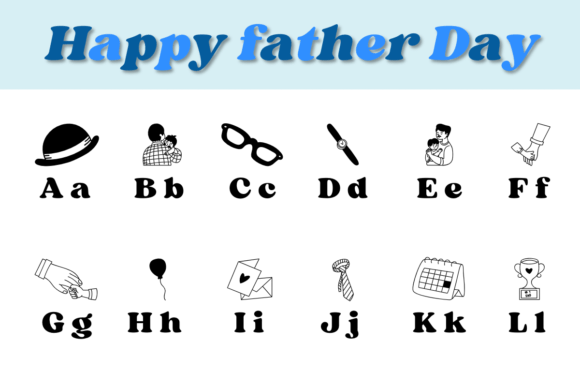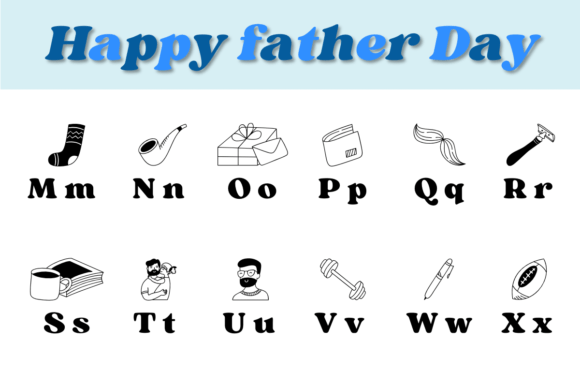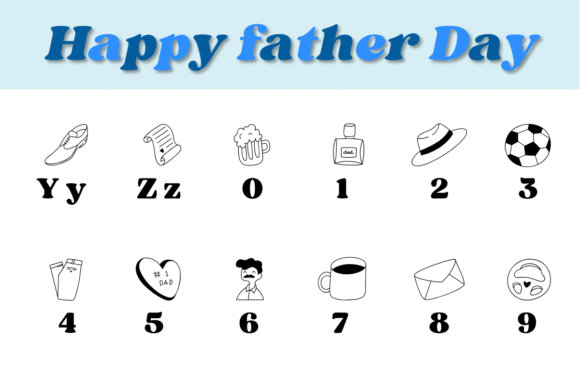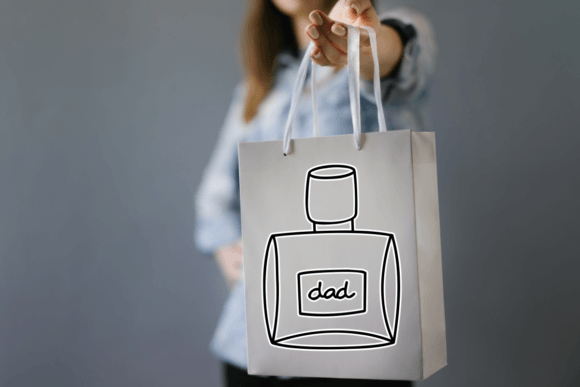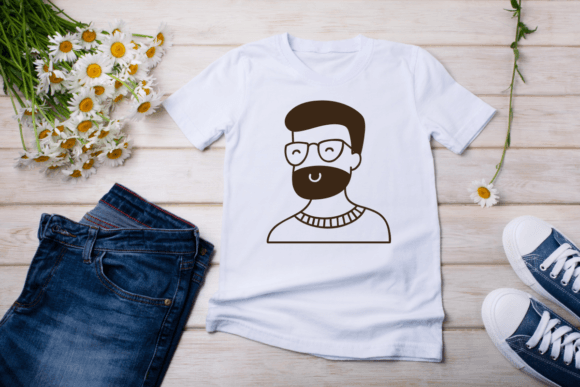
Happy Father’s Day Dingbat Font: Celebrate Dad with Special Symbols
Are you looking for a unique way to add a personal touch to your Father’s Day designs? Look no further than the Happy Father’s Day Dingbat Font! This special font is packed with fun and meaningful symbols that are perfect for celebrating dad. From ties and footballs to newspapers and more, this font has everything you need to create a memorable and engaging design.
What is a Dingbat Font?
For those who may not be familiar, a dingbat font is a type of font that features graphical symbols, rather than traditional letters and numbers. These symbols can range from simple shapes and icons to more complex illustrations and graphics. Dingbat fonts are often used in design and crafting projects to add visual interest and personality.
Features of the Happy Father’s Day Dingbat Font
The Happy Father’s Day Dingbat Font is a special font that has been designed specifically for Father’s Day. It features a range of fun and meaningful symbols that are perfect for celebrating dad. Some of the symbols included in this font include:
- Ties and bow ties
- Footballs and other sports equipment
- Newspapers and magazines
- Tools and gadgets
- Family icons, such as parents and children
These symbols are designed to be fun and playful, while also conveying the importance and love that comes with being a dad.
- Create a custom Father’s Day card or gift tag
- Design a personalized poster or banner
- Add a special touch to your Father’s Day social media posts
- Make a customized Father’s Day t-shirt or mug
- Visual interest: Dingbat fonts can add a lot of visual interest to your designs, making them more engaging and attention-grabbing.
- Personality: Dingbat fonts can help to convey the personality and tone of your design, making it more relatable and memorable.
- Flexibility: Dingbat fonts can be used in a wide range of design projects, from digital graphics to print materials.
Here are a few tips for designers and crafters who want to get the most out of the Happy Father’s Day Dingbat Font:
- Experiment with different colors and textures: Don’t be afraid to try out different colors and textures with your design. This can help to add depth and interest to your project.
- Combine with other fonts: Consider combining the Happy Father’s Day Dingbat Font with other fonts to create a unique and eye-catching design.
- Use in combination with images: Consider using the Happy Father’s Day Dingbat Font in combination with images or photographs to create a more dynamic design.
The Happy Father’s Day Dingbat Font is a fun and creative way to celebrate dad. With its range of fun and meaningful symbols, this font is perfect for designers and crafters who want to add a personal touch to their Father’s Day designs. Whether you’re creating a custom card, poster, or gift tag, this font is sure to make your design stand out.